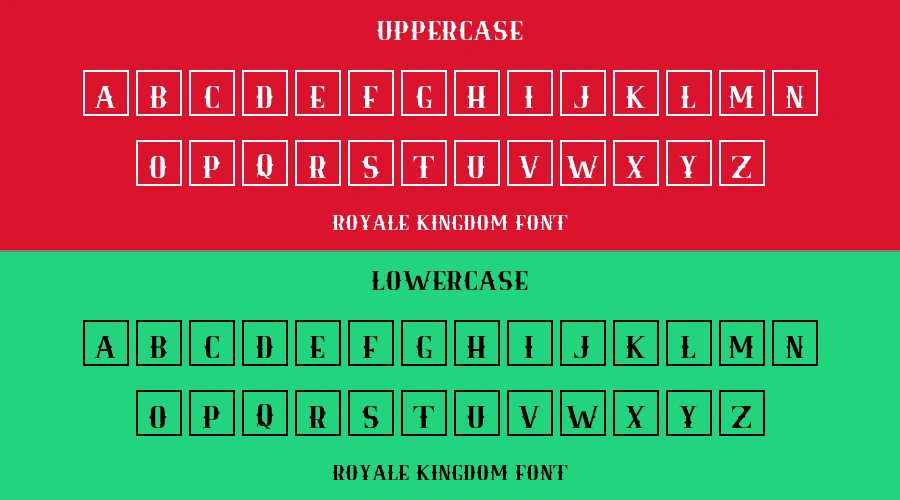
About Royale Kingdom Font
Royale Kingdom Font represents a sophisticated approach to type design, balancing decorative elements with performance stability. Perfect for ceremonial invitations, this font family showcases impressive elegance and uniqueness throughout its character set. Designers appreciate its versatility and reliability.
Designers will appreciate nuanced touches including high x-height and dingbat elements, adding sophistication to any project. These features become apparent in section headers, where kerning accuracy matters most. The careful treatment of aperture size and brand personality ensures optimal performance.